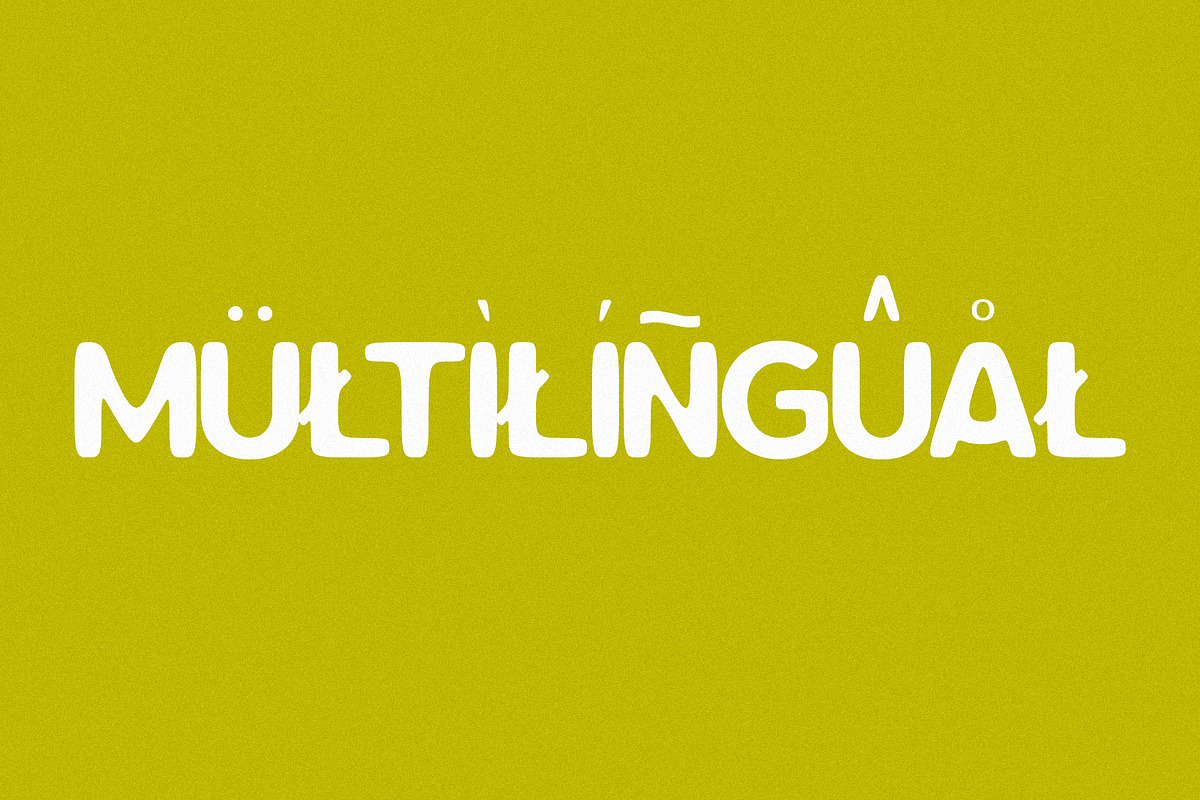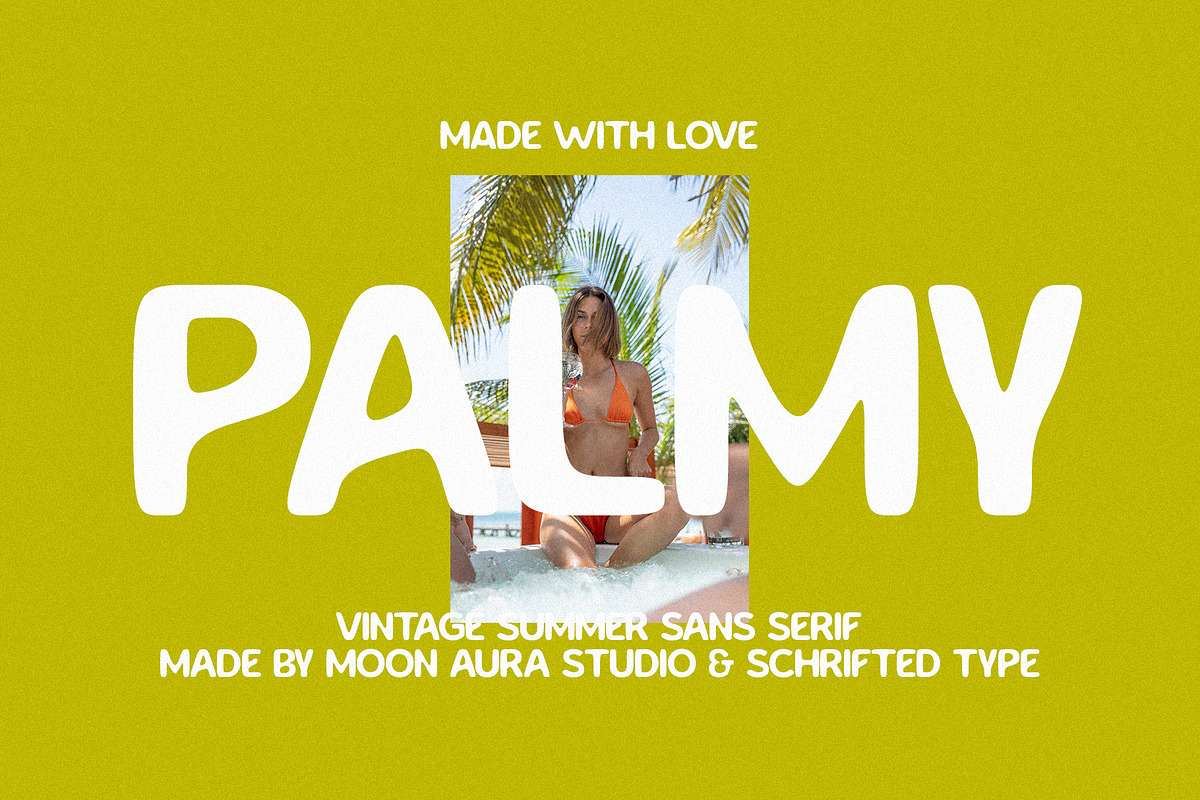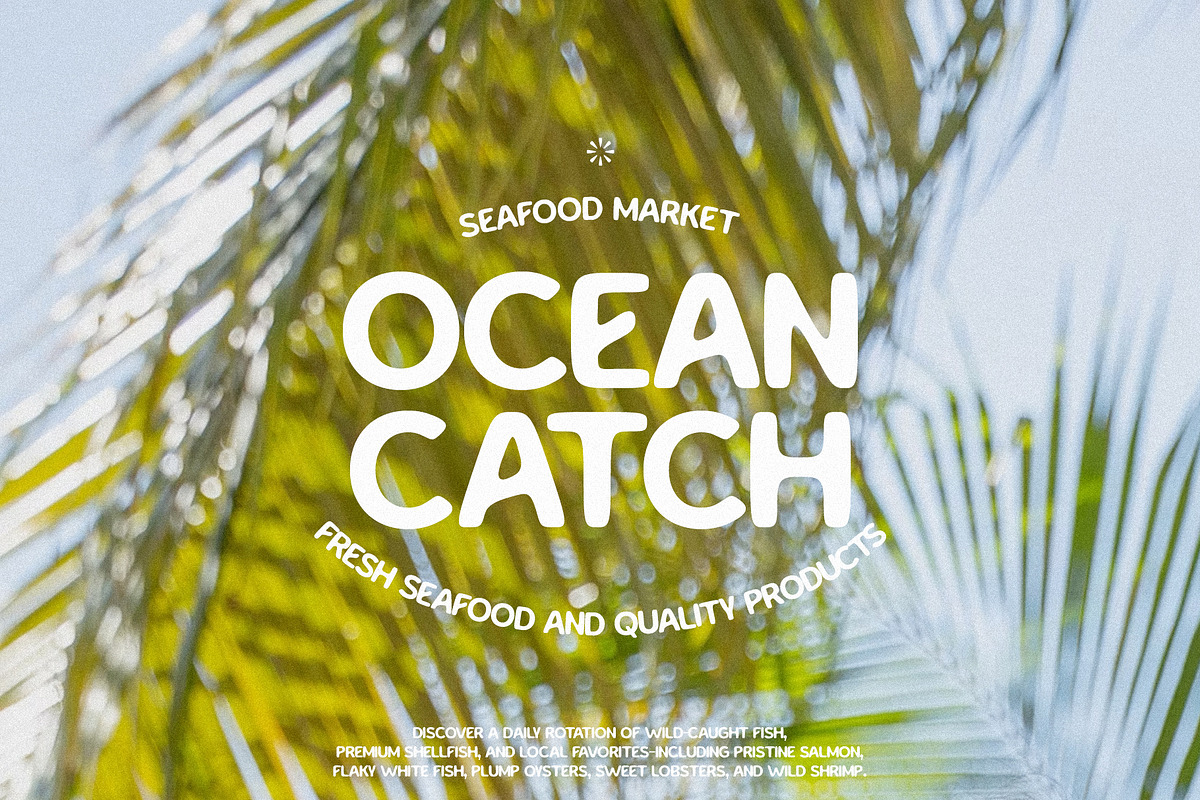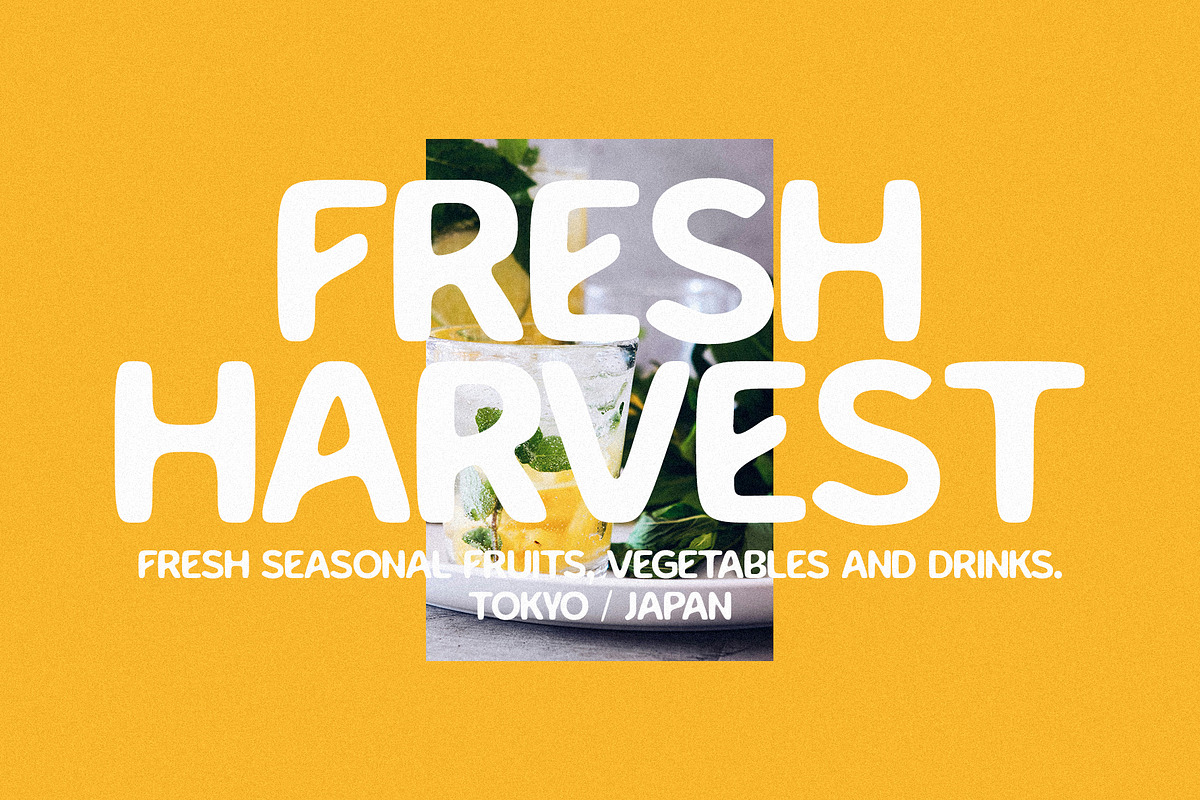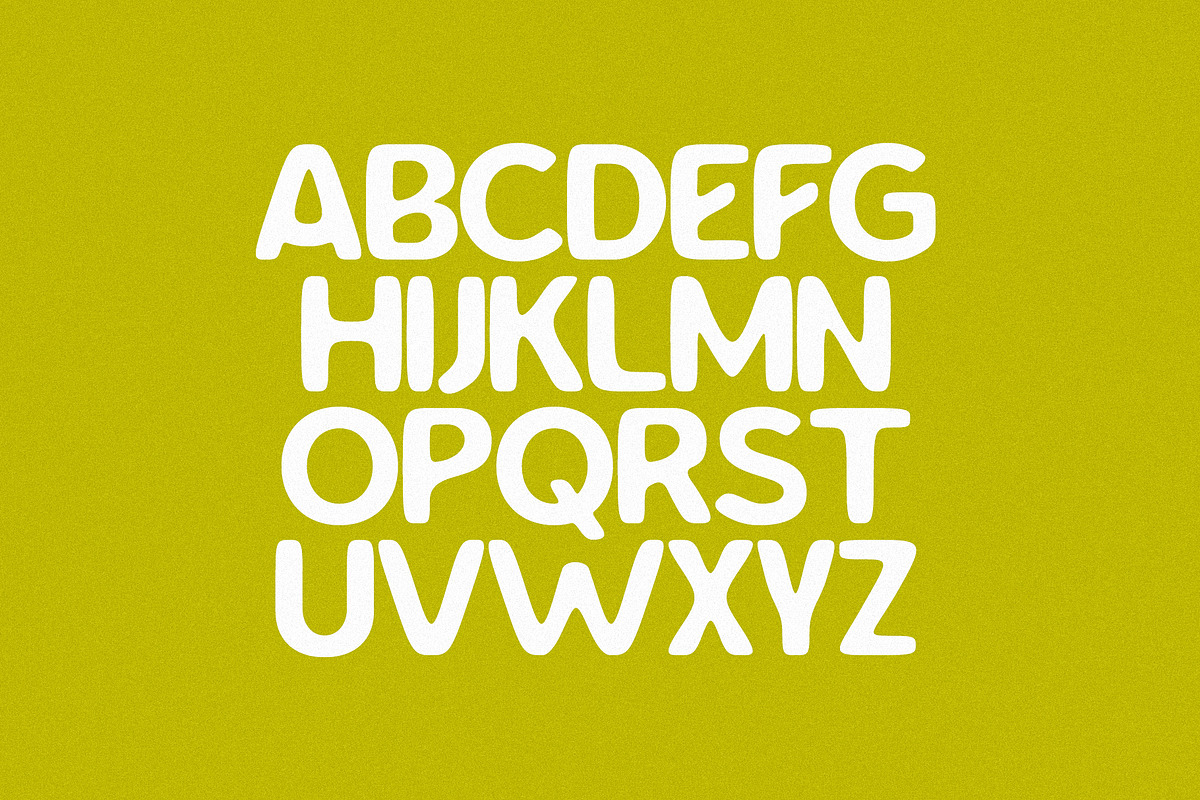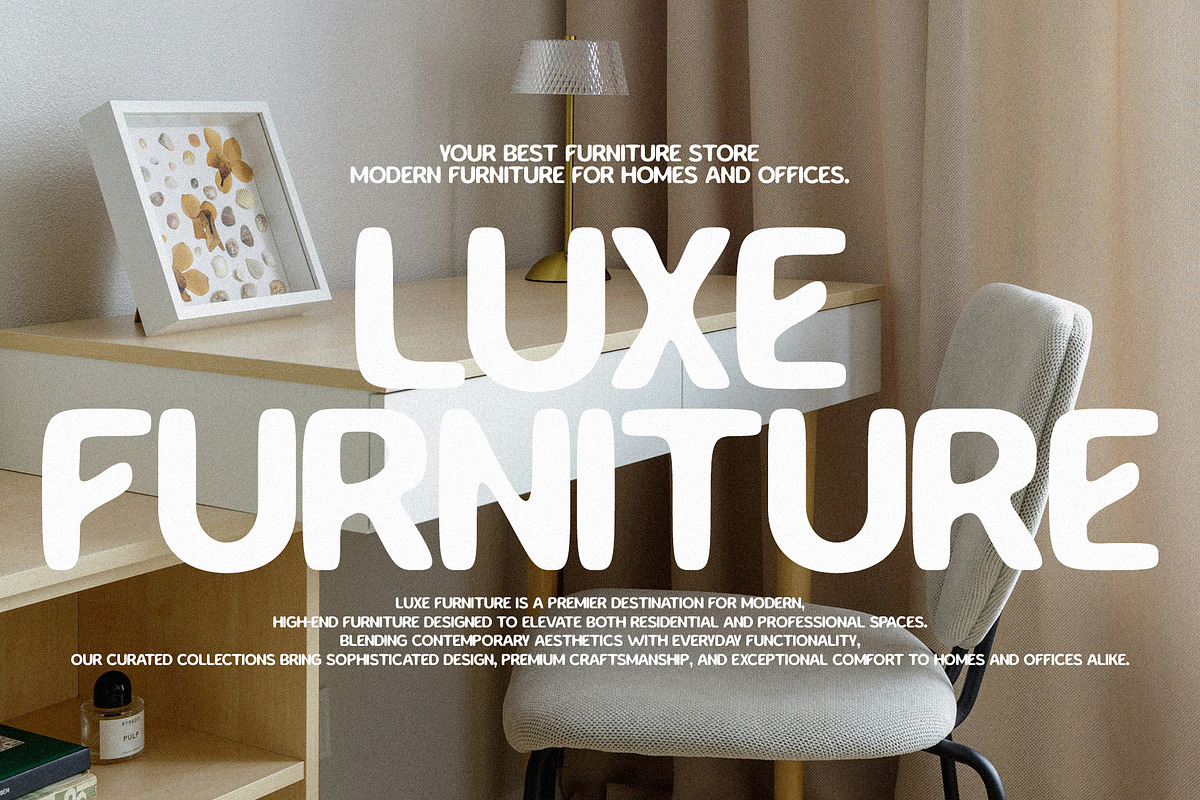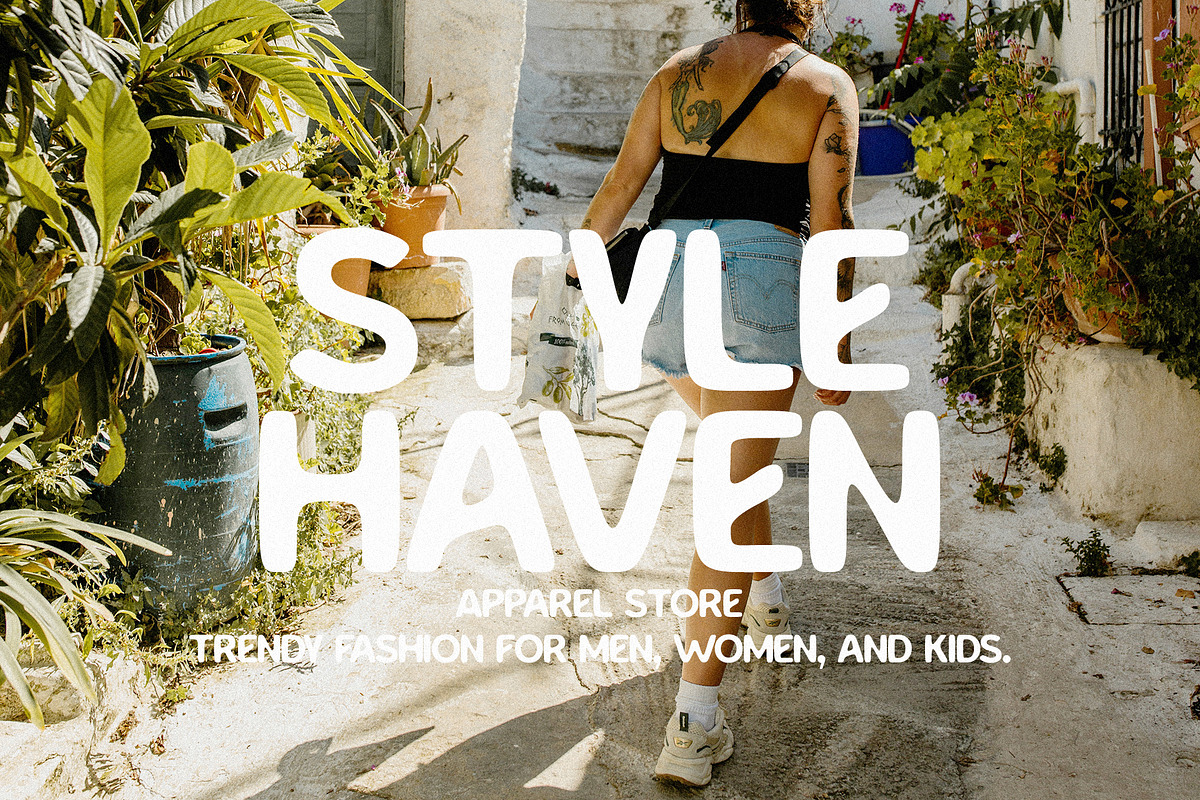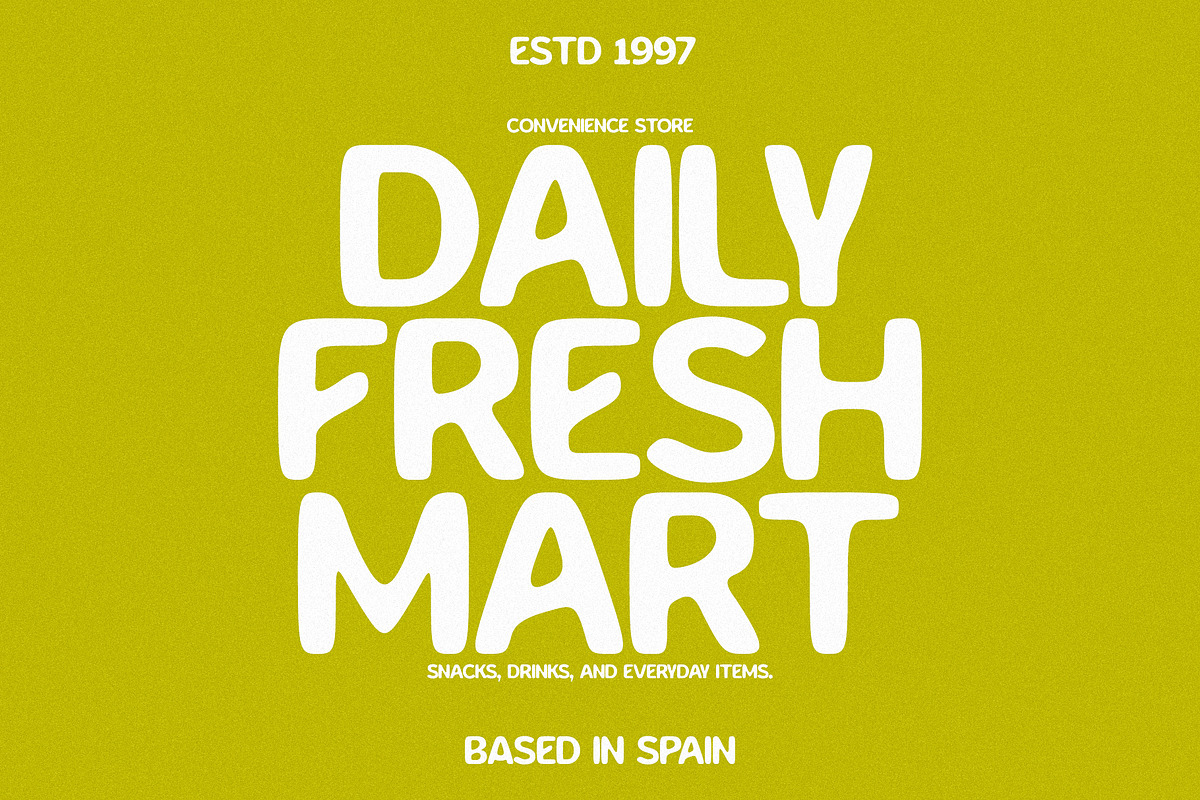
Palmy - Retro Summer Sans
Palmy – Retro Summer Sans is a bold and playful display sans inspired by vintage summer vibes, retro travel posters, and sun-soaked beach days. With its clean shapes and nostalgic character, Palmy is perfect for logos, branding, packaging, posters, apparel, social media, and eye-catching headlines. Whether you're creating a tropical identity or adding a warm retro touch to your designs, Palmy brings effortless charm and timeless summer energy to every project.